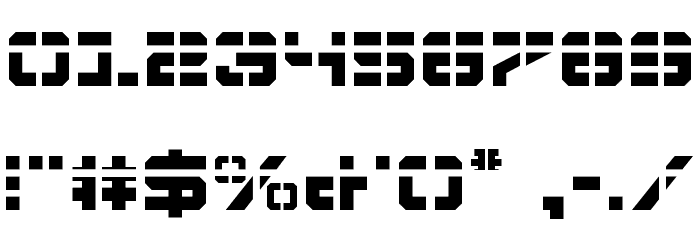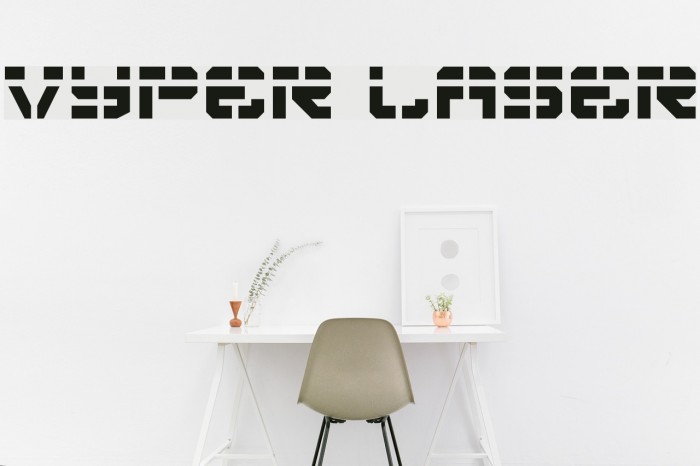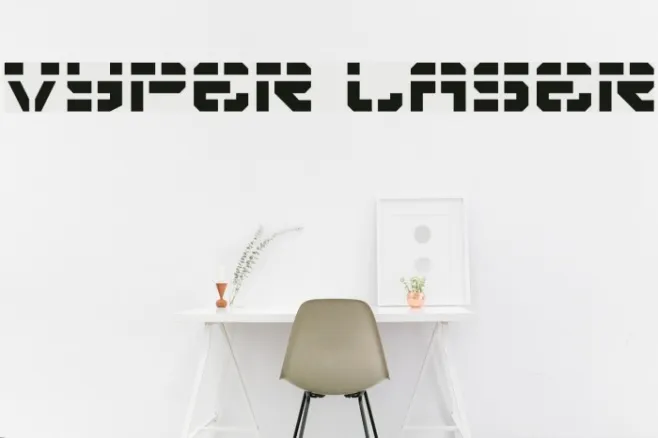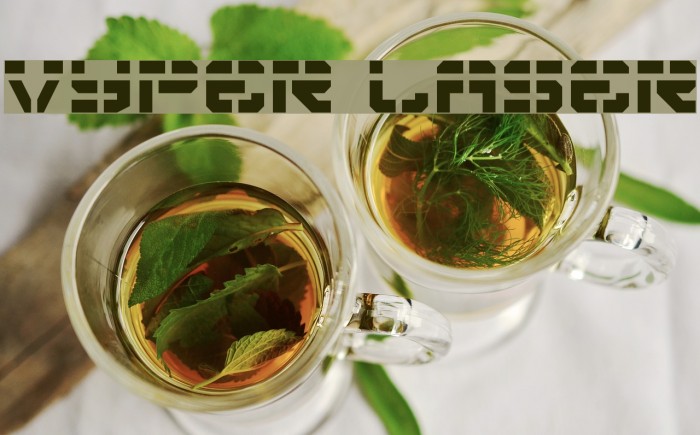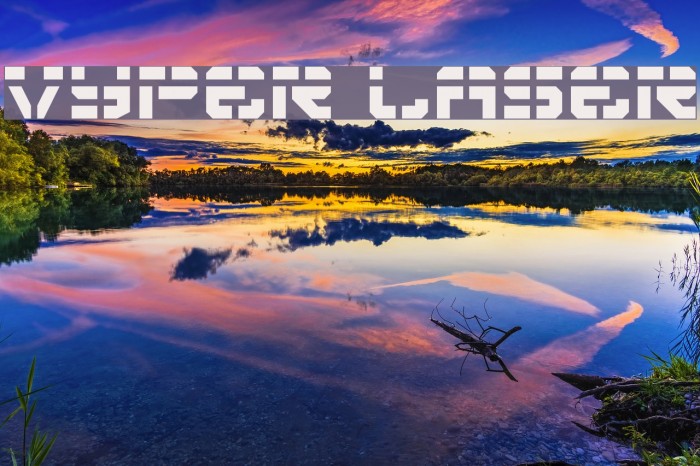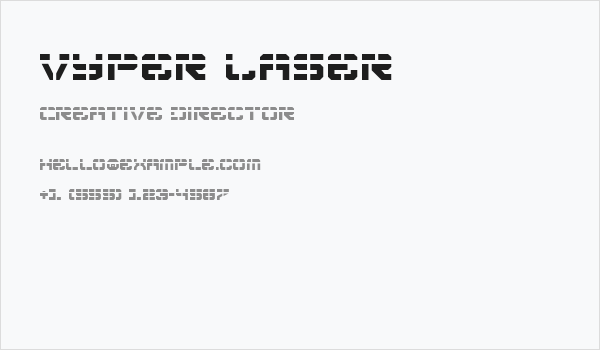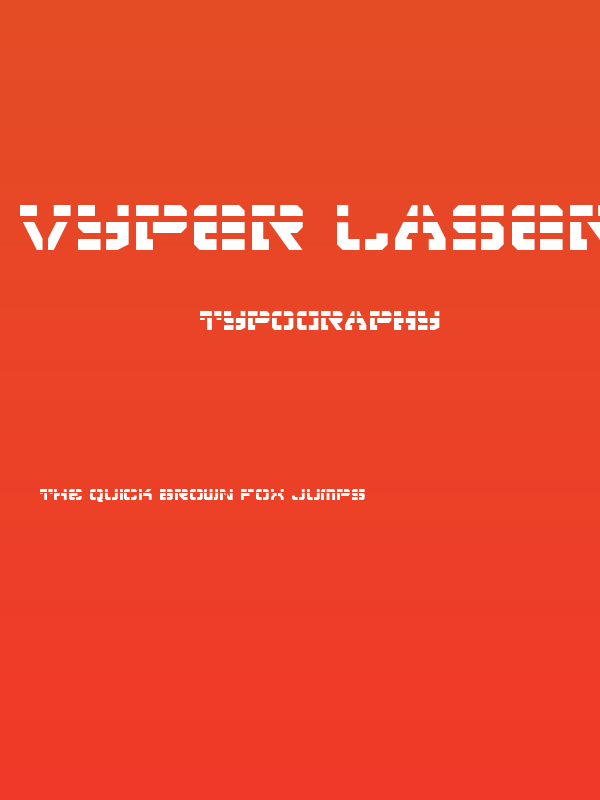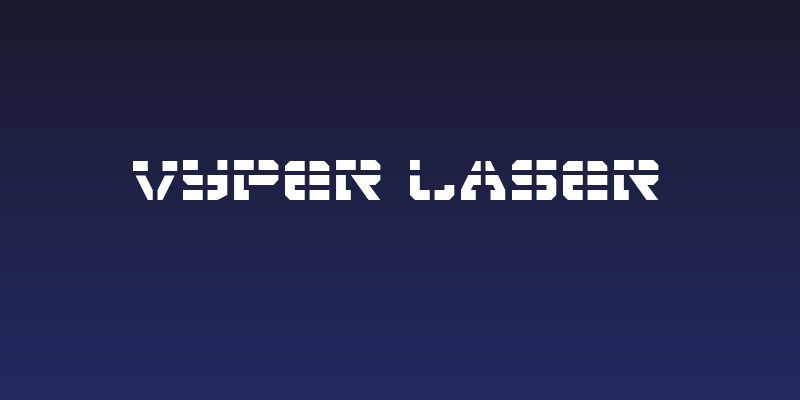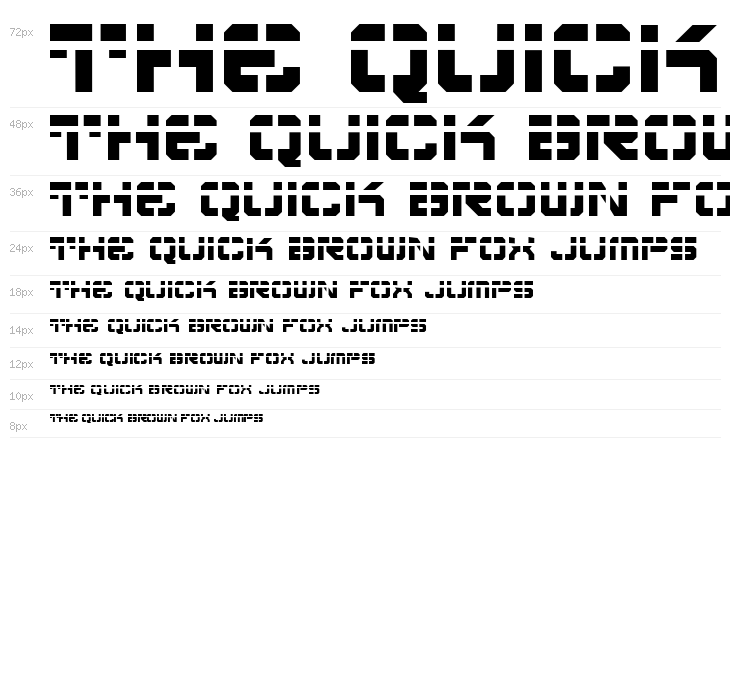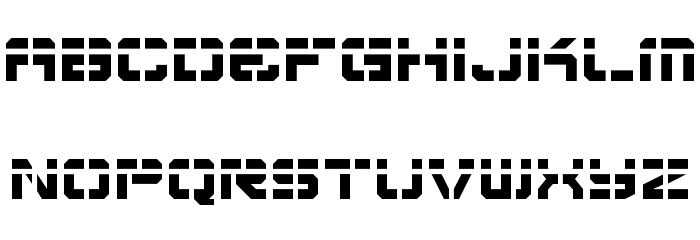
Vyper Laser Font
Vyper Laser Description
This font features a bold, futuristic design with a distinct stencil-like appearance. The characters are constructed with sharp, angular cuts and geometric shapes, giving it a high-tech, industrial feel. The uppercase and lowercase letters maintain a consistent style, with each character exhibiting a unique pattern of cutouts that enhance its modern aesthetic. The numbers and special characters follow the same design principles, ensuring a cohesive look across all glyphs. This font's striking appearance makes it ideal for projects that require a strong visual impact.
Proposed ProjectsIdeal for sci-fi movie posters, tech company logos, video game titles, and futuristic-themed event branding.